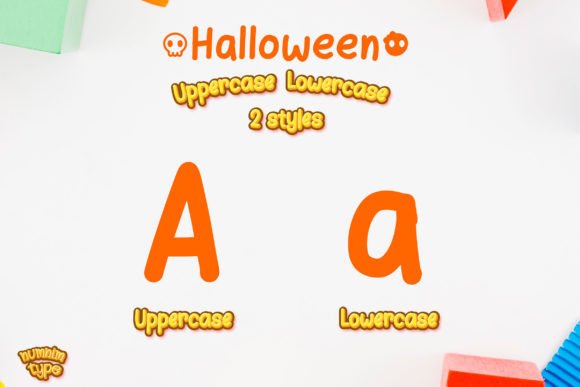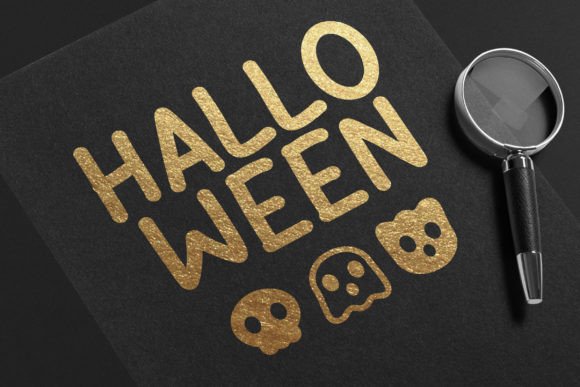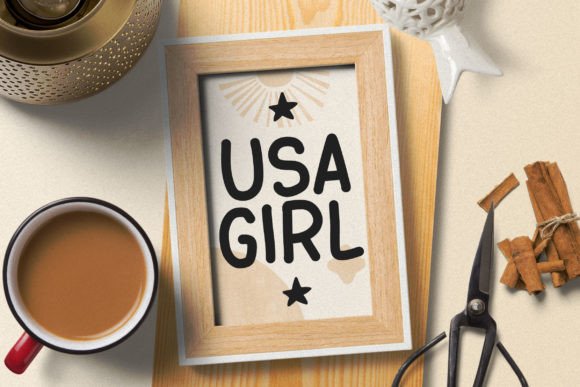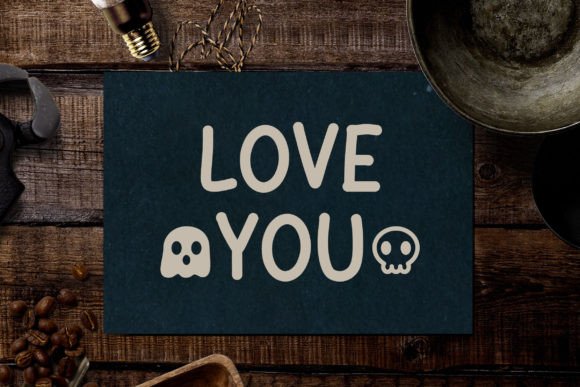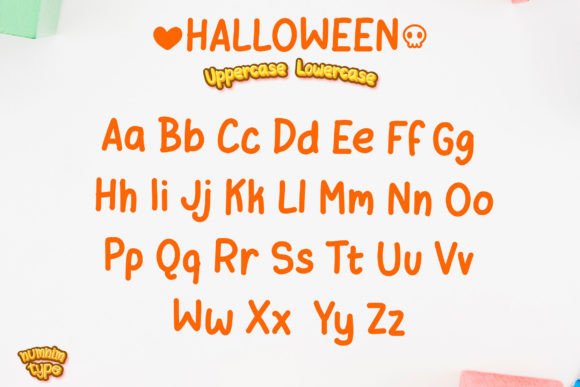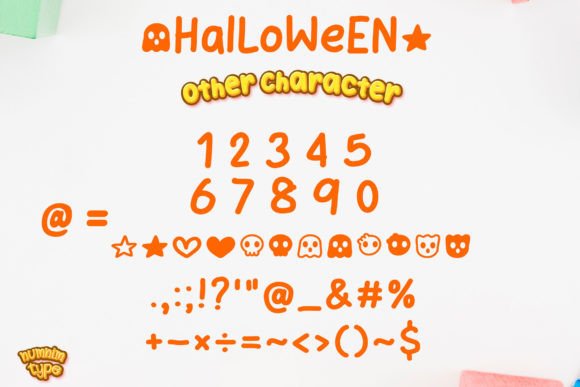
Unleash the Spooky Spirit with Halloween Font: A Decorative Delight for Designers and Crafters
As the spookiest time of the year approaches, designers and crafters are on the lookout for the perfect typography to add a touch of eerie elegance to their creations. Look no further than the Halloween Font, a cool and uniquely crafted decorative font that’s sure to cast a spell on your audience. With its fun and playful characters, this font is the perfect addition to any Halloween-themed project, from stickers and mugs to t-shirts, ornaments, and event invitations.
What Makes Halloween Font So Special?
Halloween Font is more than just a pretty face – it’s a versatile and highly functional font that’s designed to make your design process a breeze. Here are just a few reasons why this font stands out from the crowd:
- PUA Encoding: Halloween Font is PUA (Private Use Area) encoded, which means you can access all glyphs and swashes with ease. This feature allows you to unlock the full creative potential of the font, giving you access to a wide range of characters, symbols, and ornaments to enhance your designs.
- Fun and Playful Characters: The Halloween Font features a range of fun and playful characters that are perfect for adding a touch of whimsy to your designs. From spooky symbols to festive flourishes, this font has everything you need to create eye-catching and engaging designs.
- Highly Versatile: Whether you’re designing stickers, mugs, t-shirts, or event invitations, Halloween Font is the perfect choice. Its unique and decorative style makes it suitable for a wide range of applications, from Halloween party decorations to seasonal advertising campaigns.
Ideas for Using Halloween Font in Your Designs
With Halloween Font, the creative possibilities are endless! Here are a few ideas to get you started:
- Halloween Stickers and Decals: Use Halloween Font to create eye-catching stickers and decals for laptops, water bottles, and other surfaces. Add some spooky symbols and festive flourishes to make your designs stand out.
- Seasonal Apparel: Design Halloween-themed t-shirts, hoodies, and other apparel using Halloween Font. The font’s playful characters and bold style make it perfect for creating eye-catching and festive designs.
- Halloween Event Invitations: Create spooky and inviting event invitations using Halloween Font. Add some creepy details, such as spider webs and jack-o’-lanterns, to set the tone for a howling good time.
- Ornaments and Home Decor: Use Halloween Font to design custom ornaments, garlands, and other home decor items. The font’s festive style makes it perfect for adding a touch of Halloween cheer to your designs.
Tips for Getting the Most Out of Halloween Font
To get the most out of Halloween Font, here are a few tips to keep in mind:
- Experiment with Different Sizes and Colors: Don’t be afraid to experiment with different sizes and colors to find the perfect combination for your design. Halloween Font looks great in bold, bright colors, but it can also be used in more subtle, muted tones.
- Combine with Other Fonts: Halloween Font pairs well with other fonts, so don’t be afraid to combine it with other typography to create a unique and eye-catching design.
- Use the Font’s Glyphs and Swashes: Take advantage of Halloween Font’s PUA encoding by using the font’s glyphs and swashes to add extra details and flourishes to your designs.